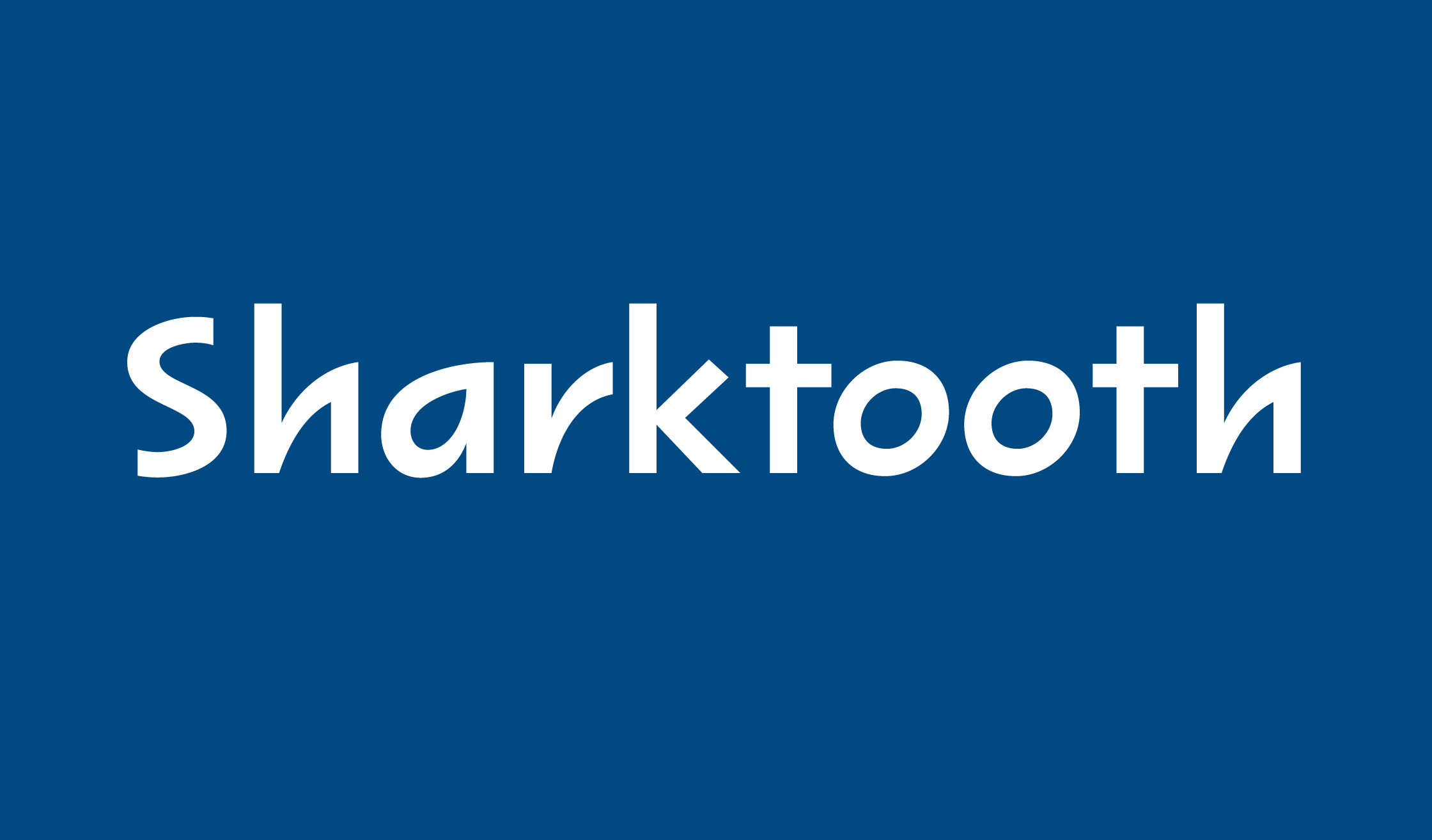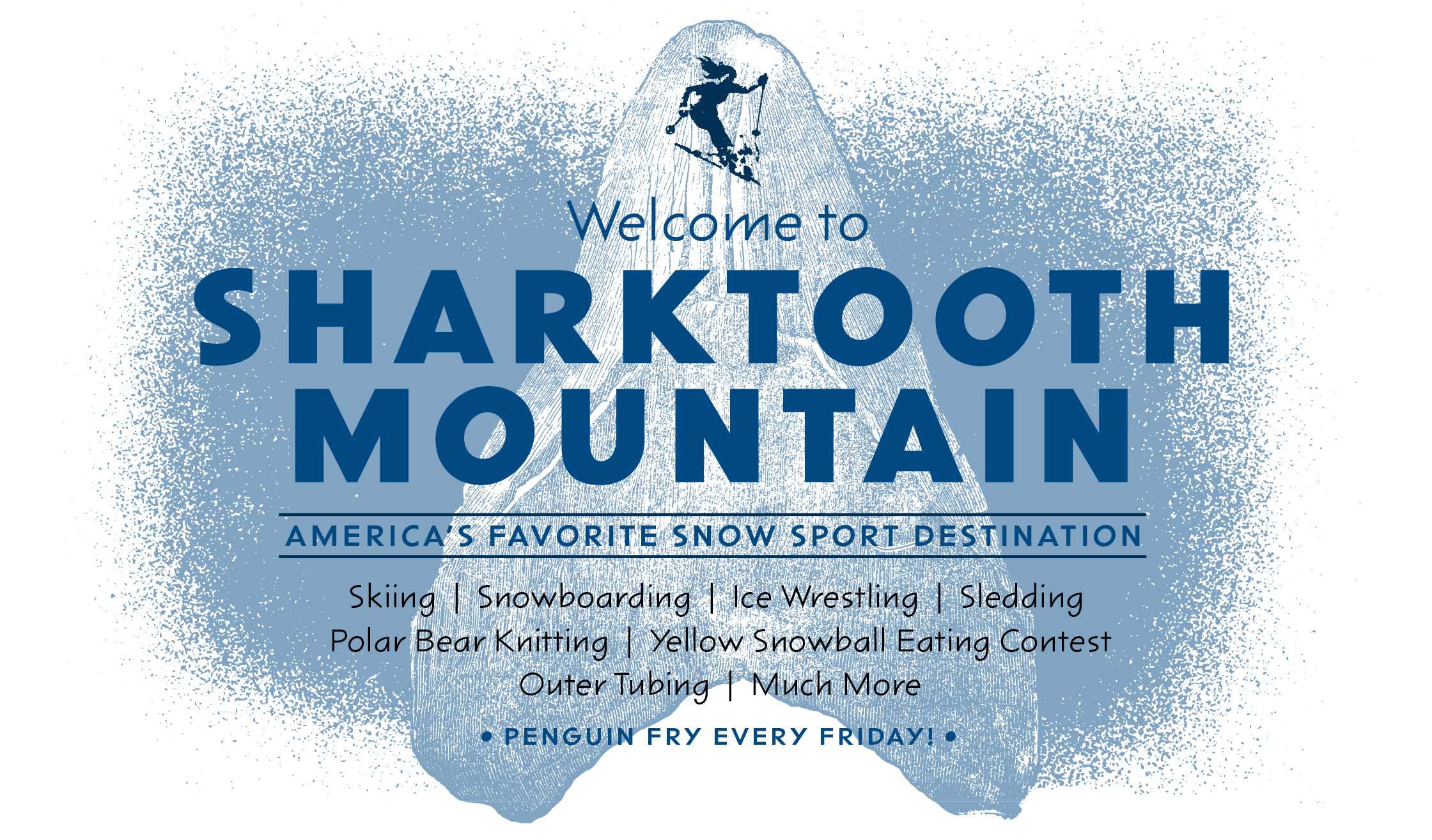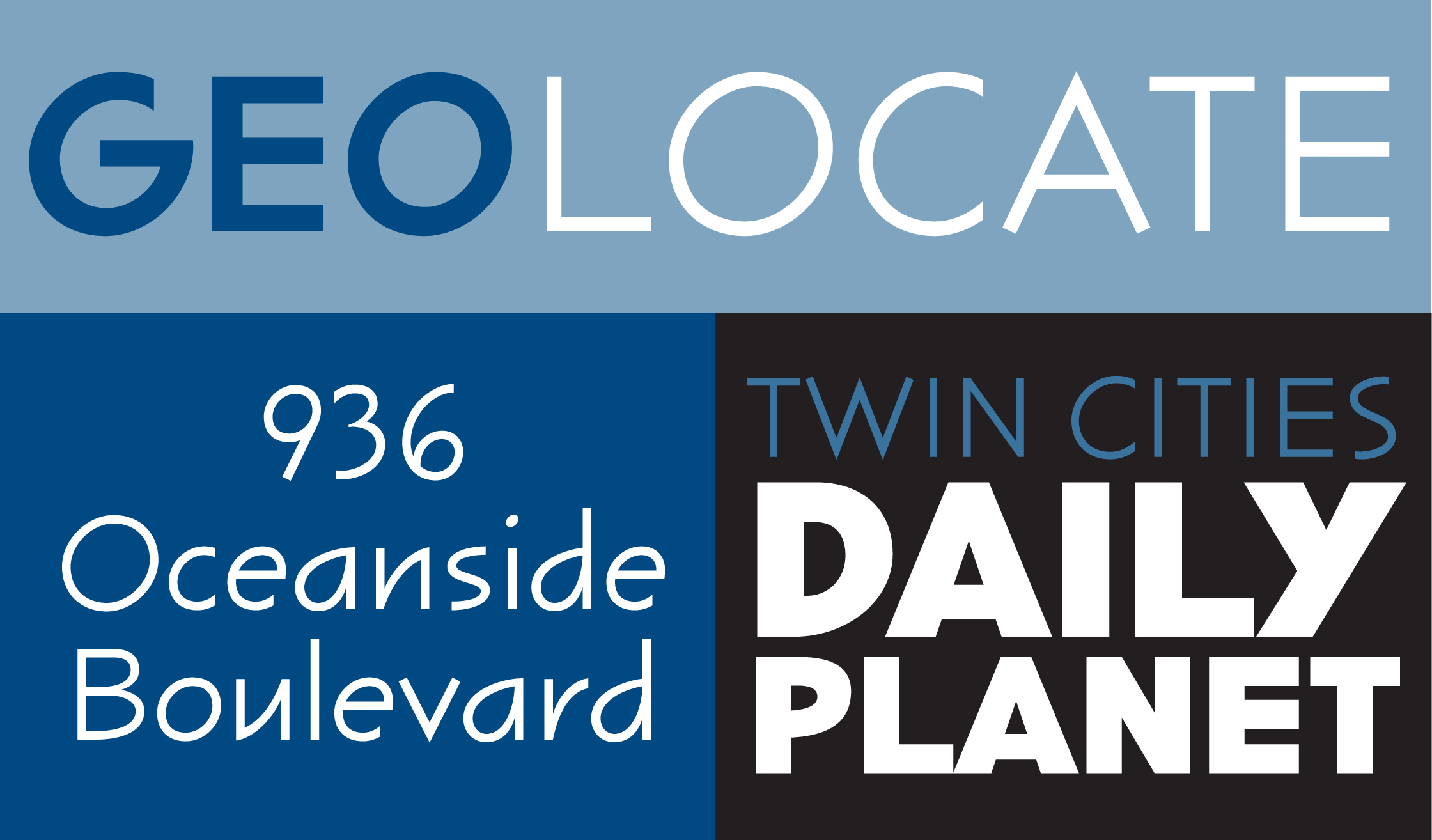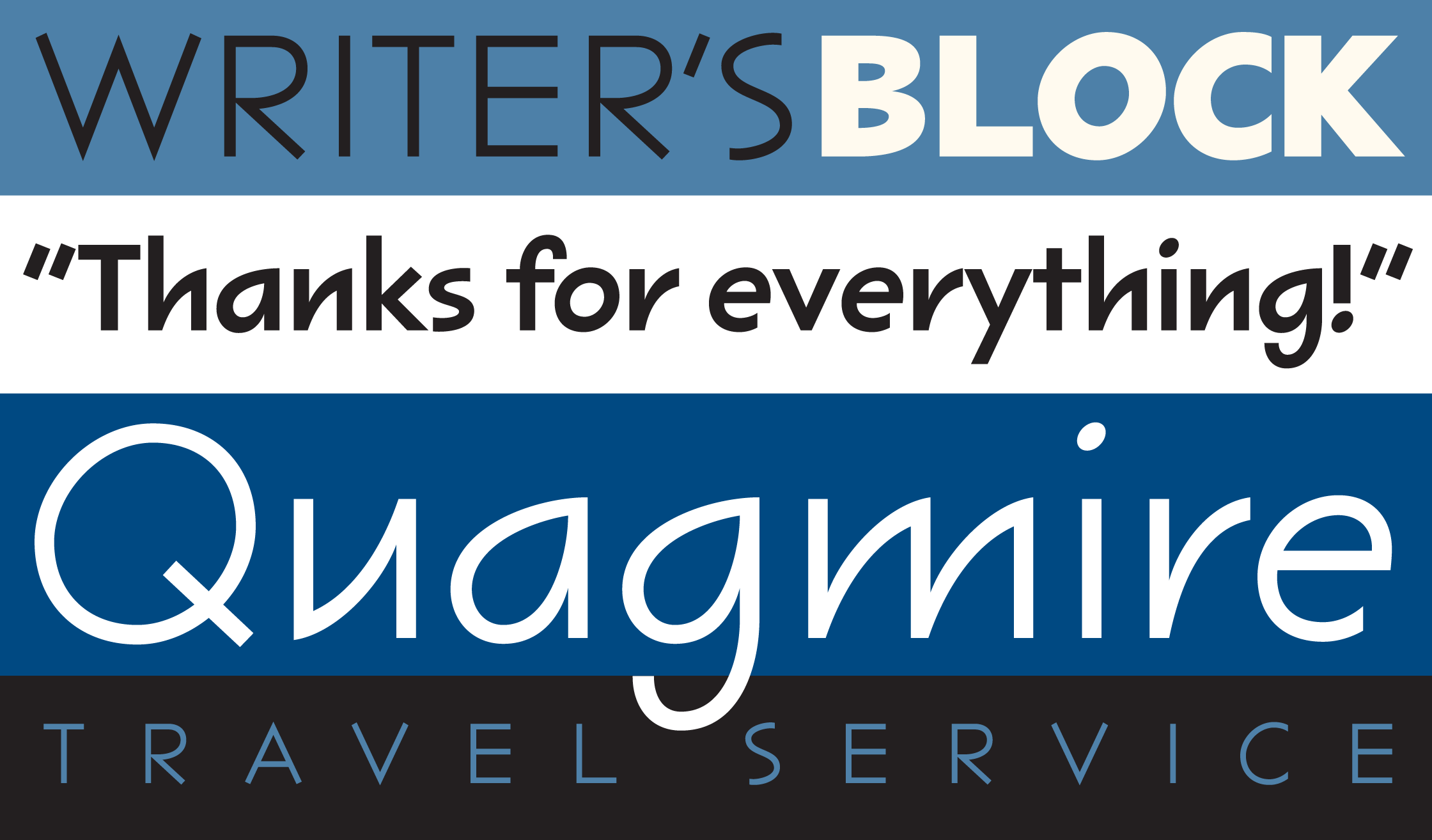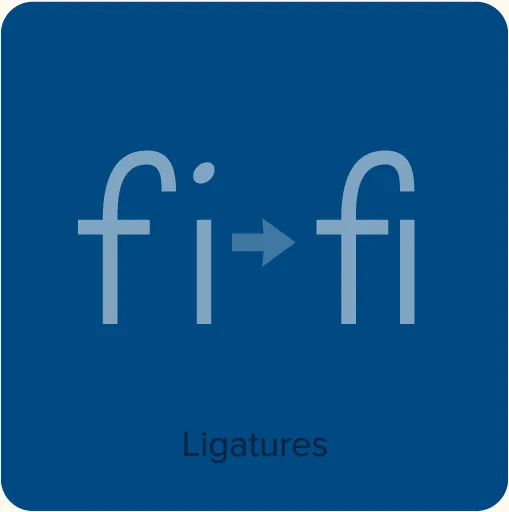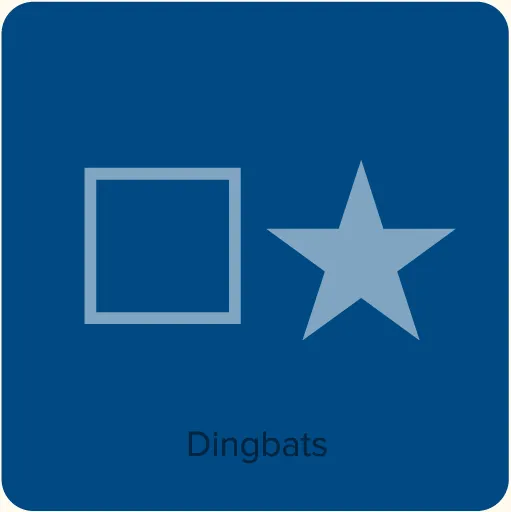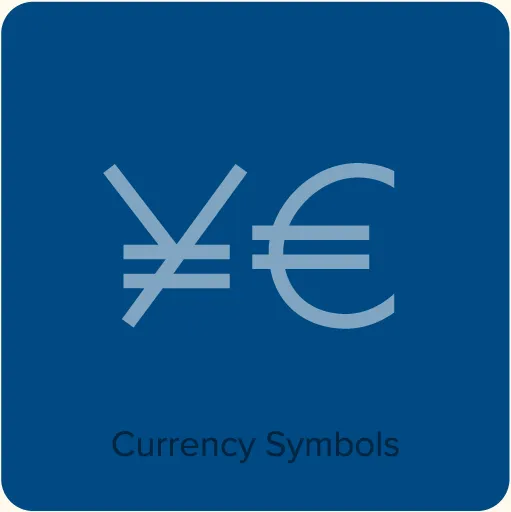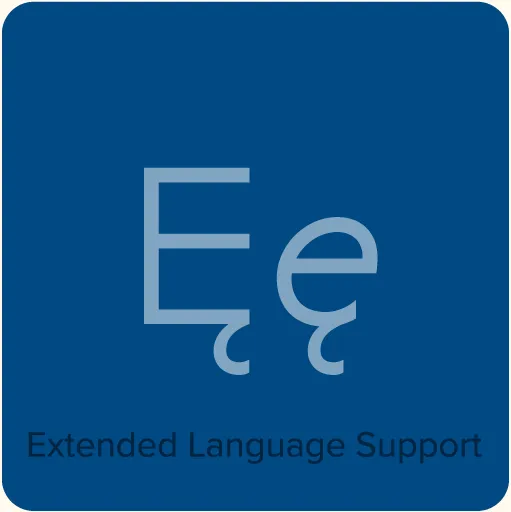
Sharktooth (2000, 2003) began as an attempt to turn Felt Tip Roman into a “real” typeface. My approach was to take the essential underlying forms of Felt Tip Roman and rationalize them into regular typographic forms, simplifying and stylizing a subset of the existing shapes. In the end, only glimpses of Felt Tip Roman remained, and Sharktooth turned out distinctly different from its source. As a text face, it has a lively texture and is quite legible. The name comes from the sharp, angular shapes seen in many of the letters.
Sharktooth Features
- Three weights: Regular, Bold, and Heavy.
- Ligatures.
- Dingbats.
- Extended language support for most Latin-based Western and Central European languages.